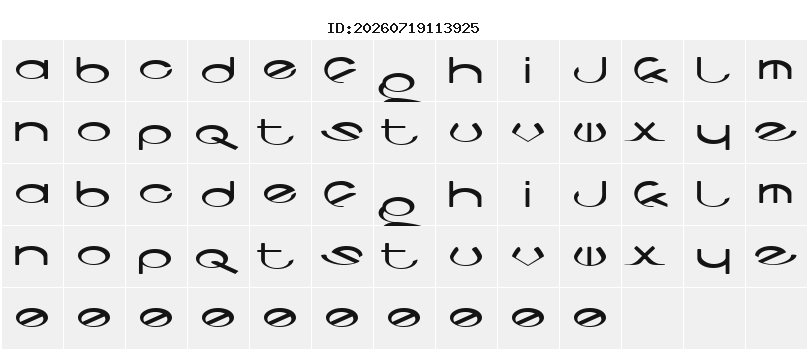
• Font Name: Codeca
• Font ID: Macromedia Fontographer 4.1 Codeca
• Full Font Name: Codeca
• Version: First Version-6/3/99
• PostScript Name: Codeca
• Copyright: © 1999 Andrew Galarza [Jedi Serpant]
About Codeca.ttf
Codeca.ttf is a modern, elegant sans-serif font designed for ultimate readability and visual harmony. Perfect for branding, headlines, web design, and print materials.